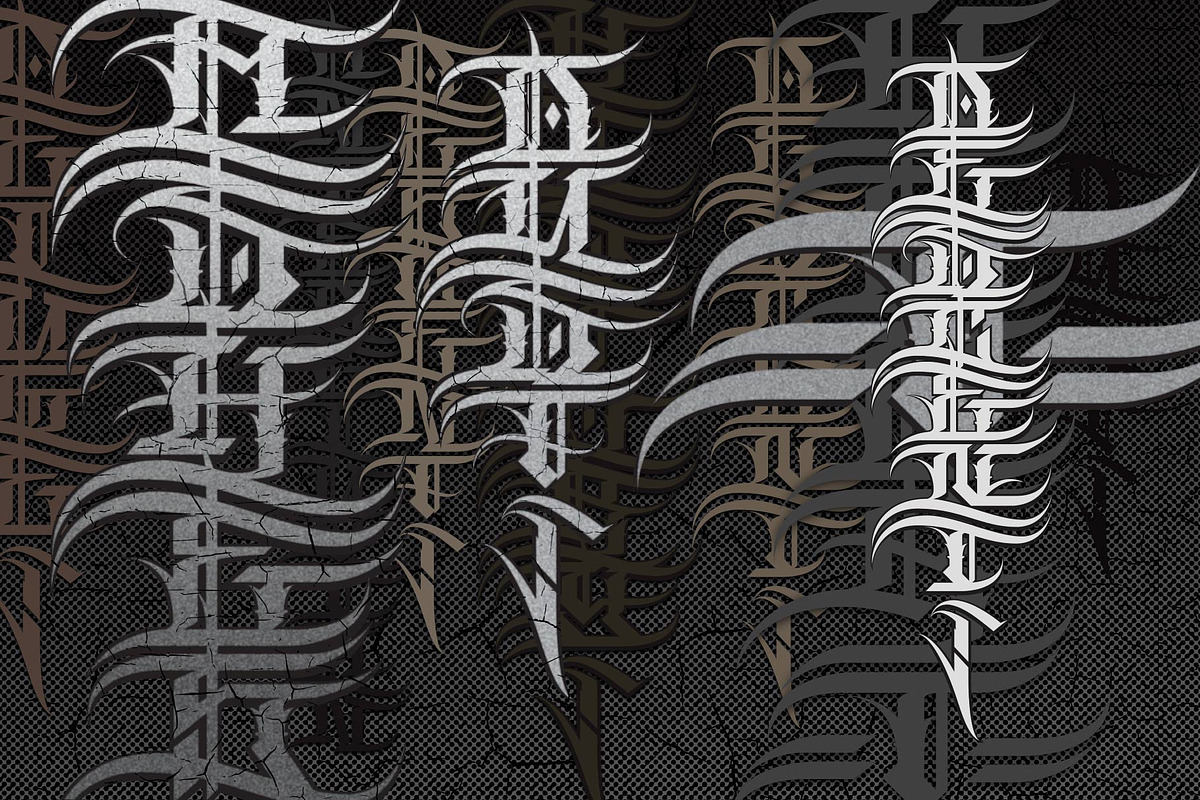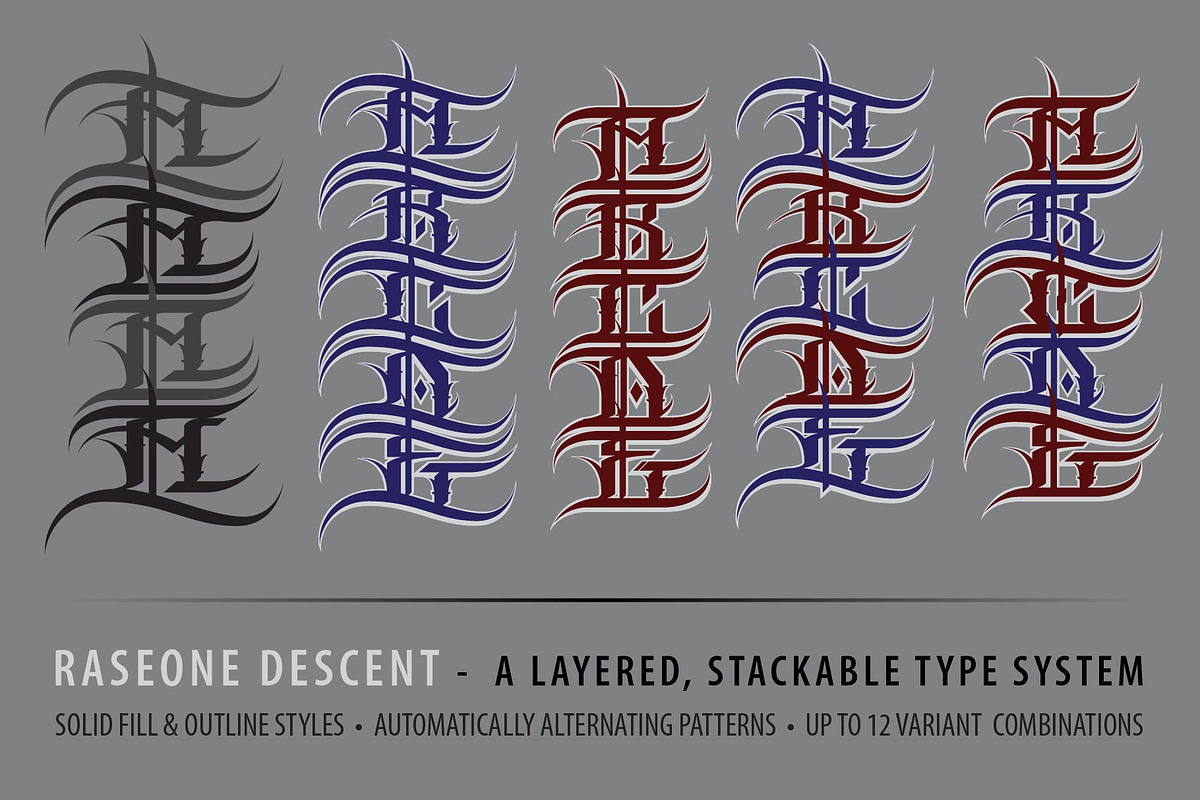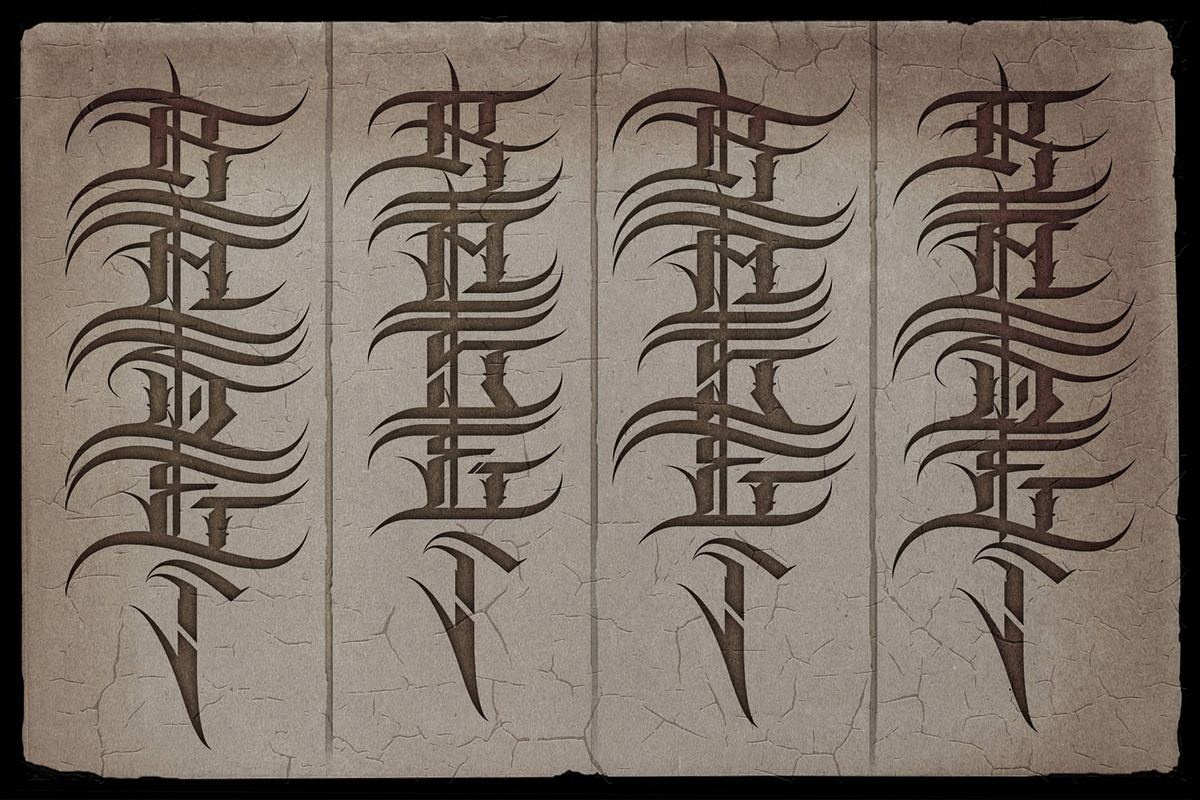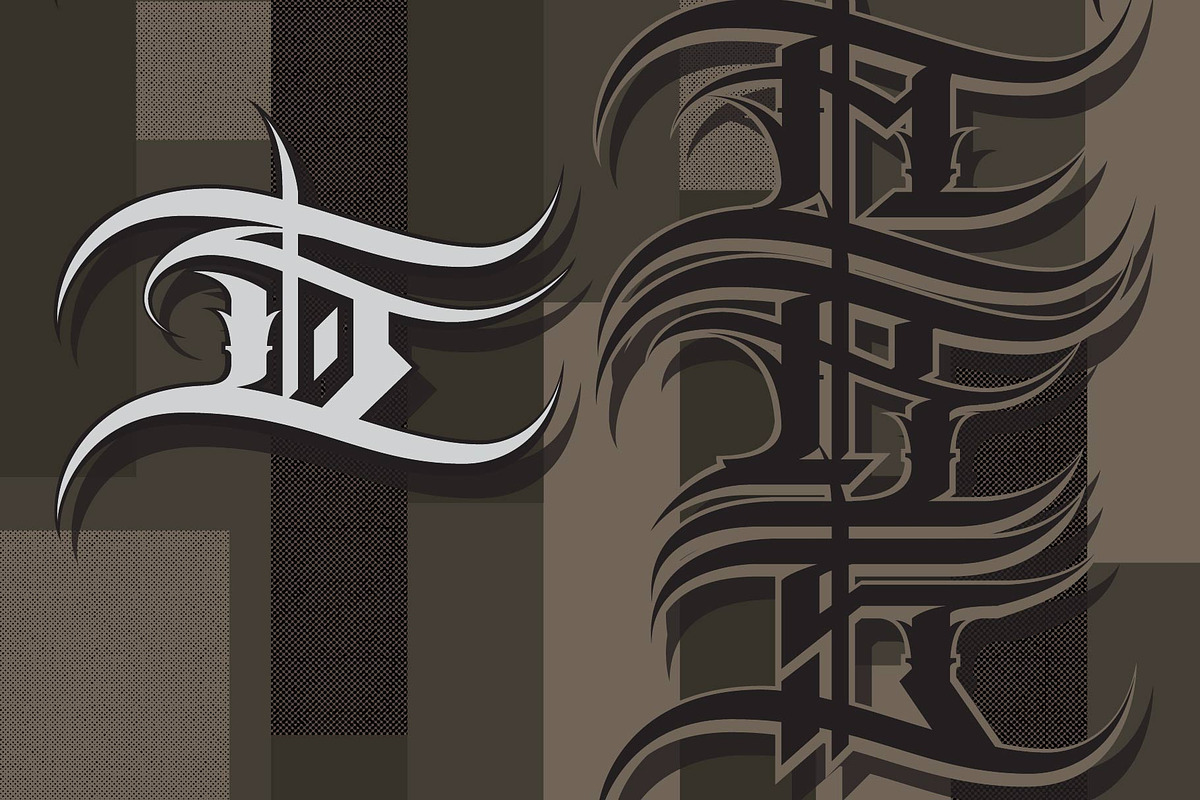
Graffiti Fonts | Descent Font Family
The Descent family is a unique, downward-reading graffiti style. This stackable, layered type system consists of a contextual style & a classic style, each with a base fill version & an outline version. Special features in the contextual version enable up to 12 unique variants of any word using alternating patterns of interlocking glyphs. Glyphs from both the contextual & classic styles can be mixed & used interchangeably & both styles can be stacked with their corresponding outline fonts.